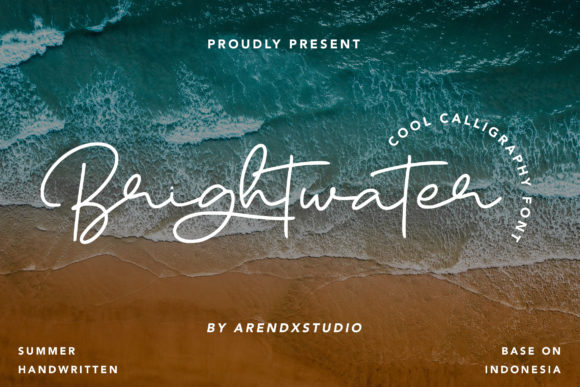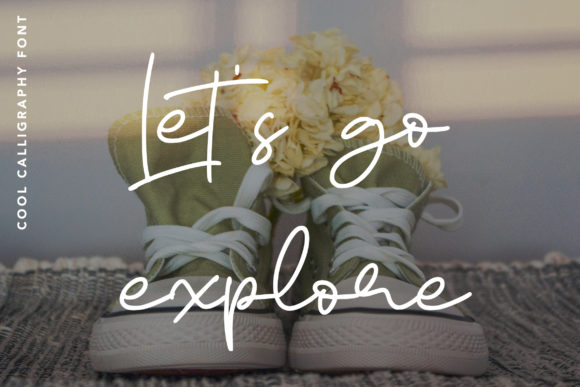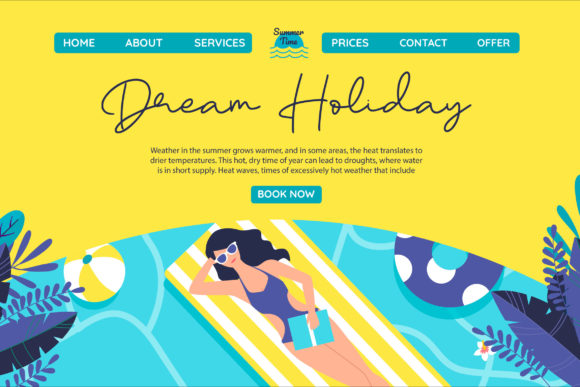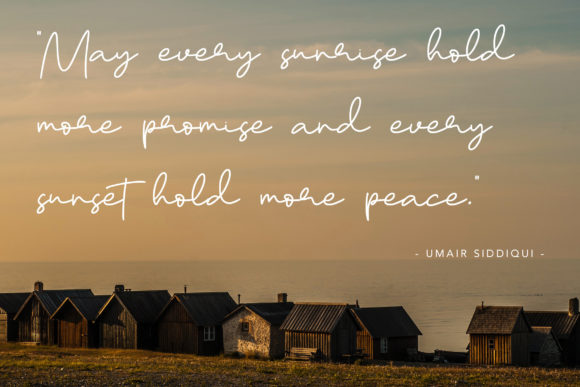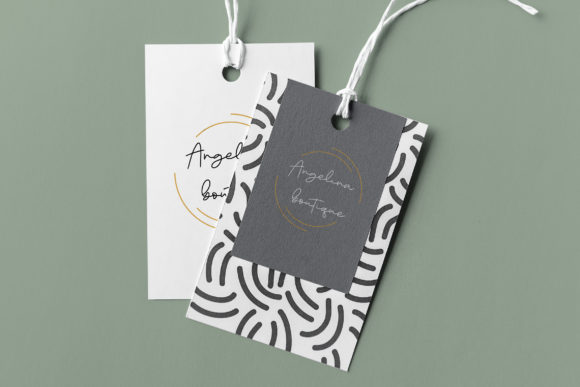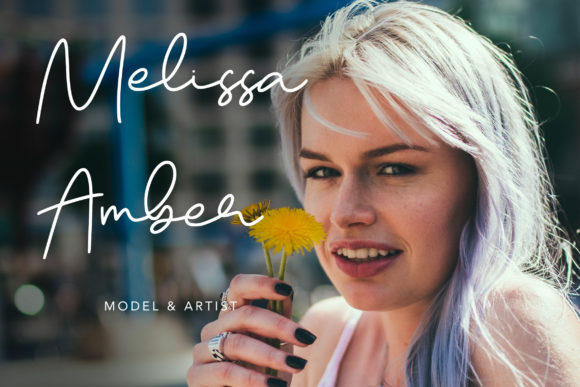
Brightwater Font
About Brightwater Font
Brightwater is a lovely and timeless handwritten font. It is the best choice for creating eye catching logos, branding and quotes. Every letter has a unique and beautiful touch, which will make your design come alive!